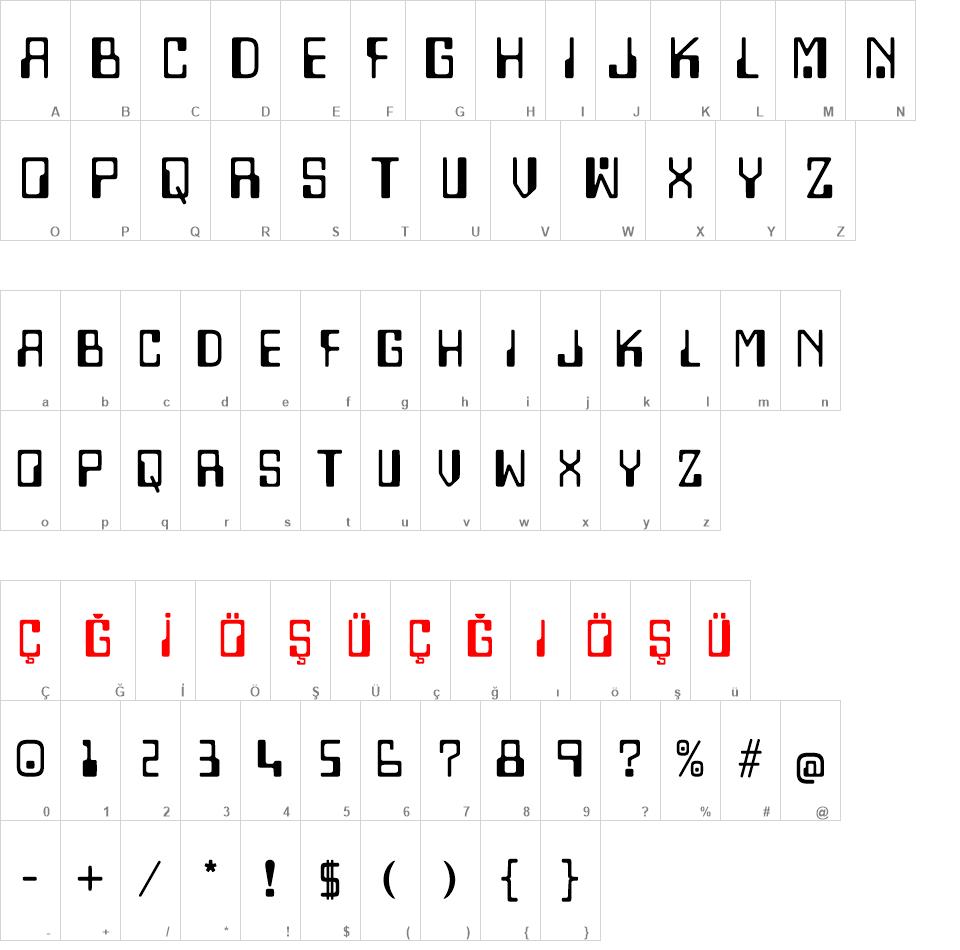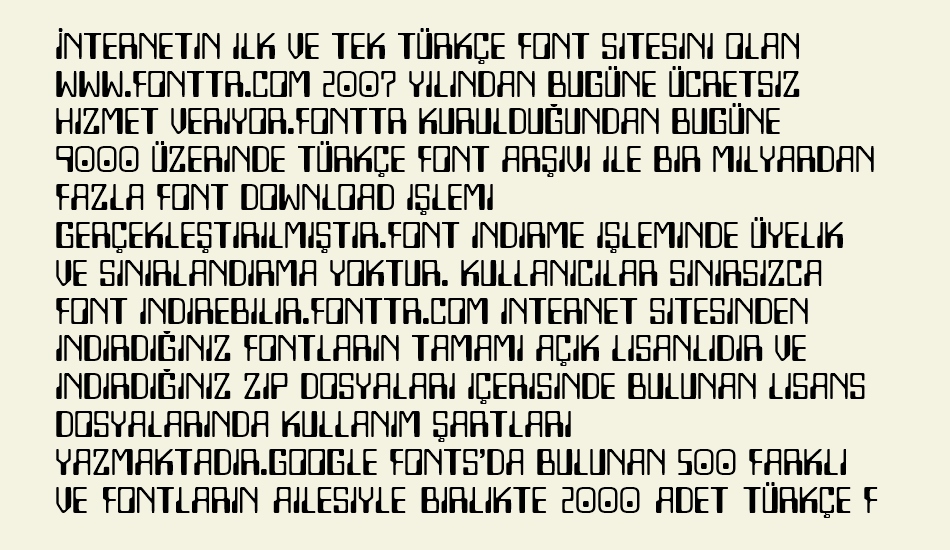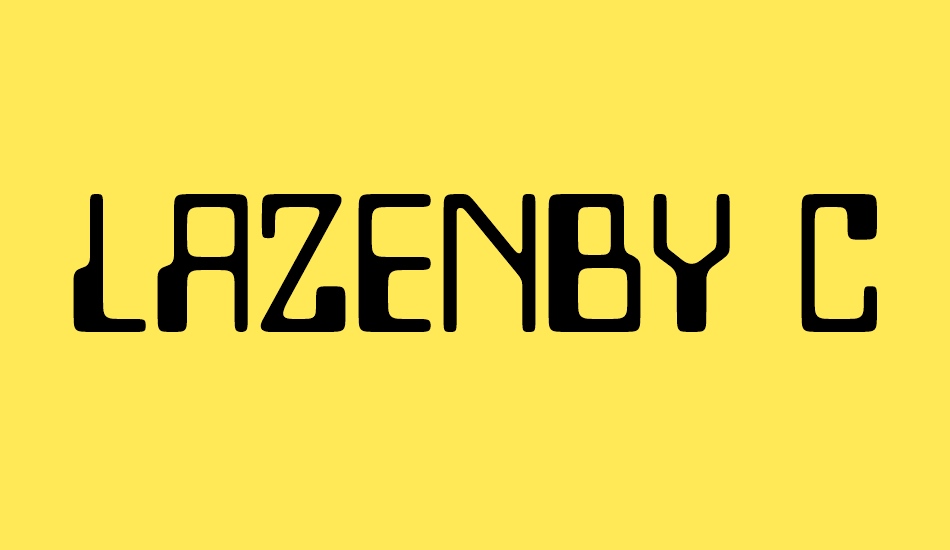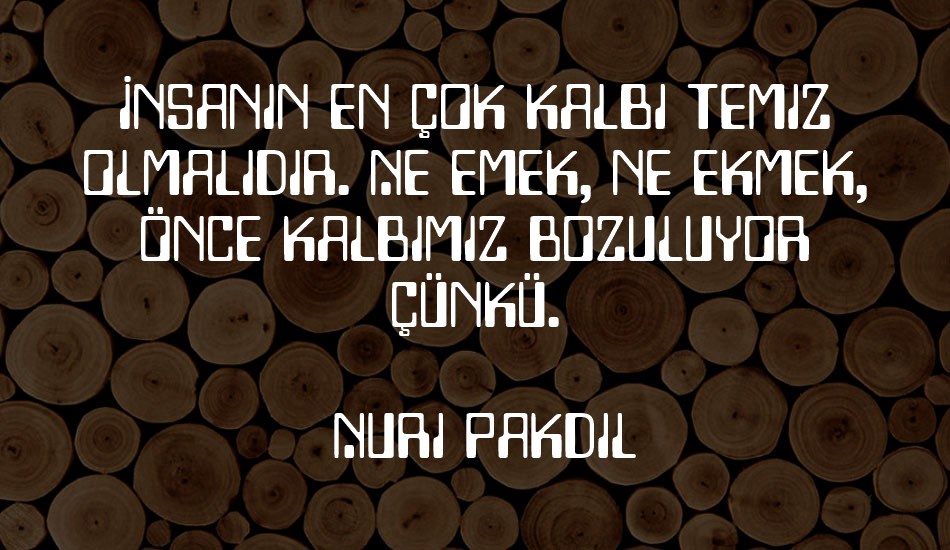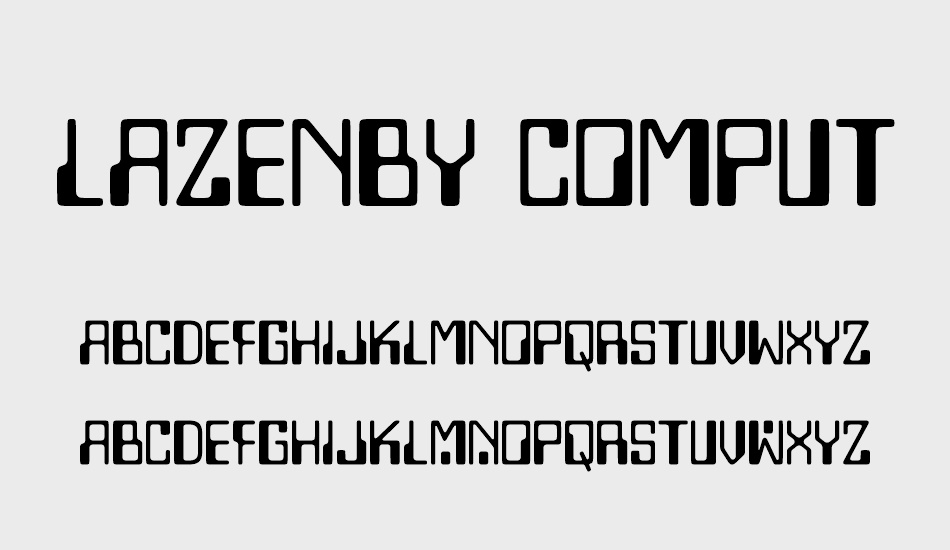
Lazenby Computer font
LAZENBY COMPUTER
From-scratch redraw, and massive character expansion of a famous font face with many names.
Created 2014 by Andrew Young, Disaster Fonts.